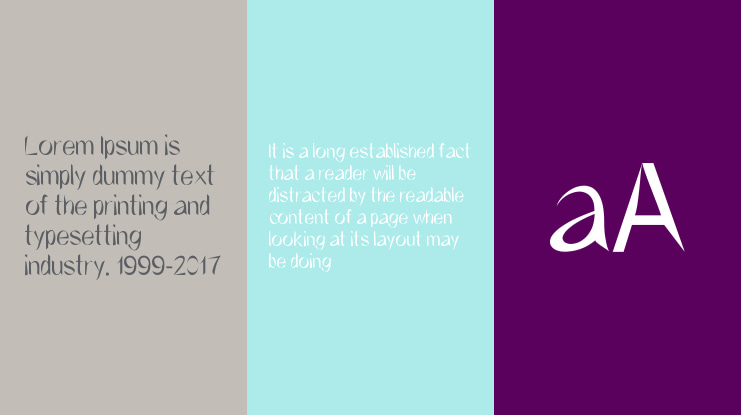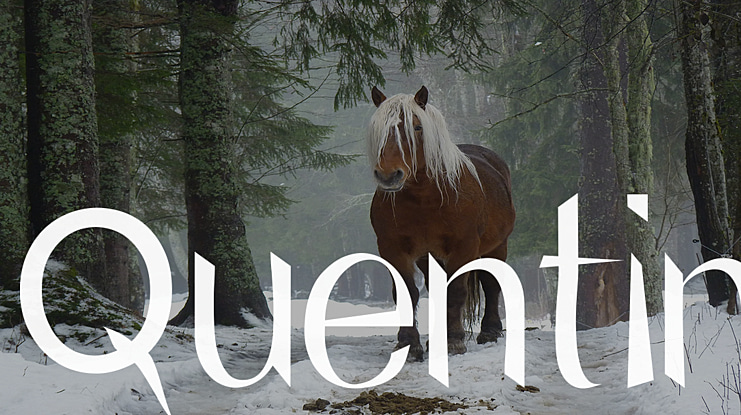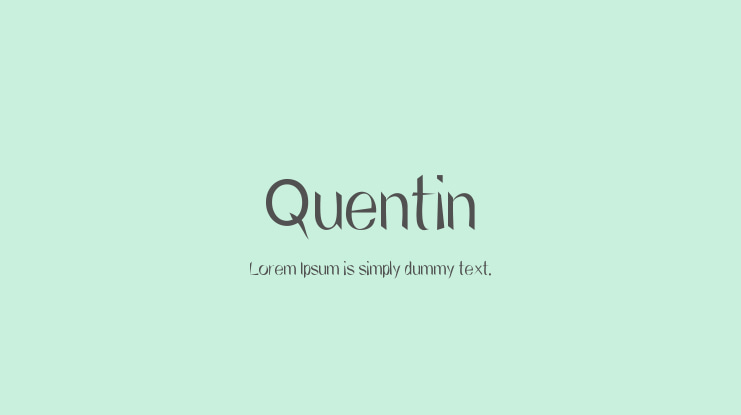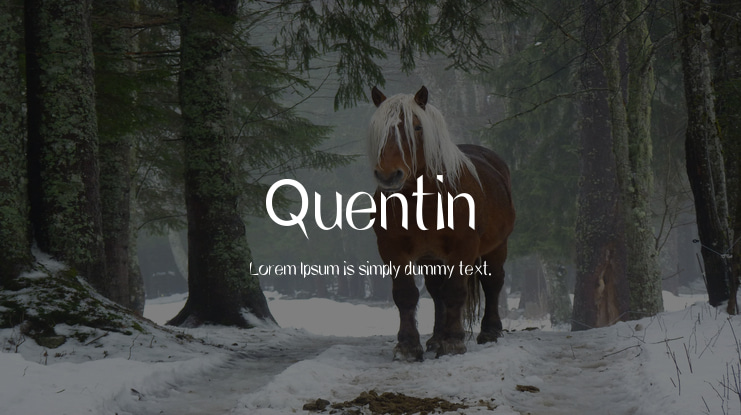
Quentin Font
Quentin
Quentin is a modern sans serif font with a clean, stylish look & feel.
It’s the perfect font for logos, headings, web layouts and branding. It’s look stunning as all-caps with a wide-set spacing if you want to go for a classy look, or beautiful on it’s own with lowercase letters.